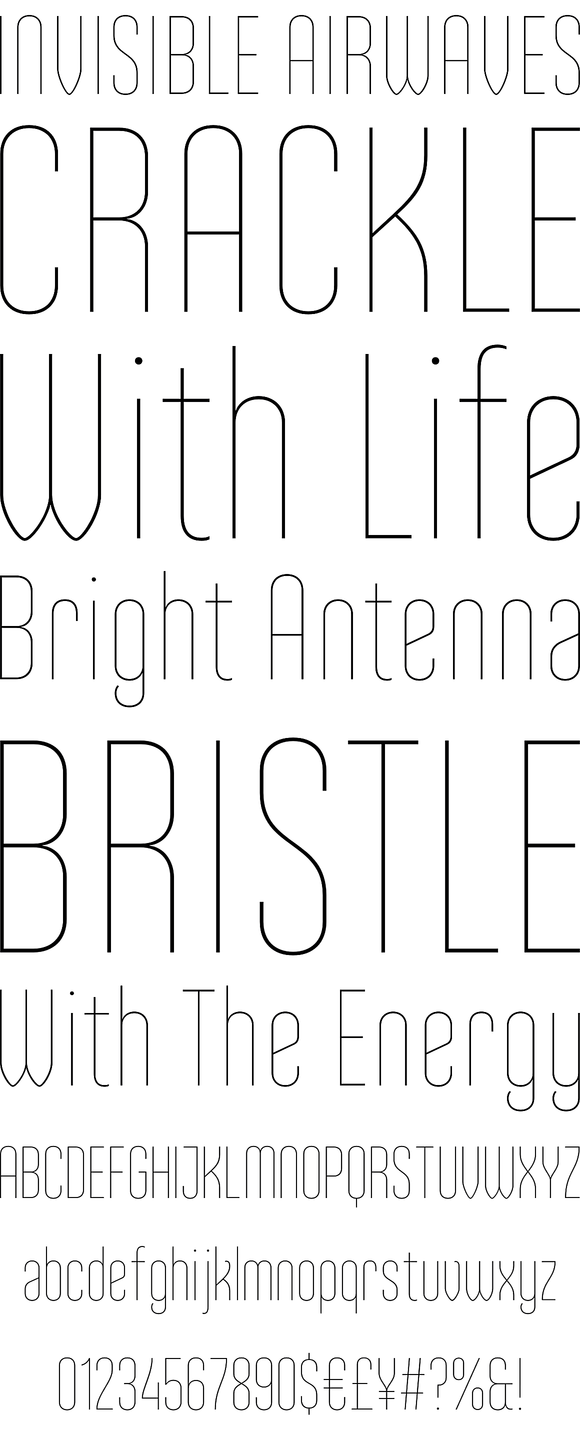
Ando is a condensed typeface family consisting of 5 weights. Its modular design works particularly well for headlines & display use, where its soft curves & distinctive letterforms can create an instant eye-catching effect. The fonts, provided in Opentype format, include standard ligatures, diacritics for most European languages and some Opentype features (case sensitive forms & proportional/tabular figures).